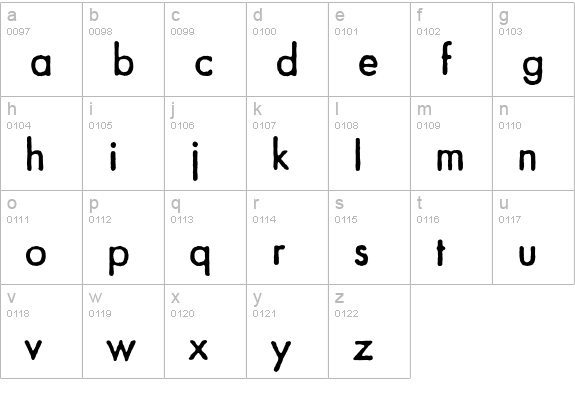
Graham-Regular is the standard, neutral variant in the Graham typeface family \xE2\x80\x94 well suited to general body text, paragraphs, and standard typographic work.
Graham-Regular is a versatile and elegant font that exudes timeless sophistication. With its clean lines and classic design, this font is perfect for a wide range of projects, from branding to editorial design. The balanced proportions and subtle details of Graham-Regular make it a standout choice for conveying professionalism and refinement. What's even better is that Graham-Regular is available for free download at FontsMarket.com. This means you can easily access and use this beautiful font in your projects without any cost. Don't miss out on the opportunity to enhance your designs with Graham-Regular – download it today and elevate your creations to the next level.